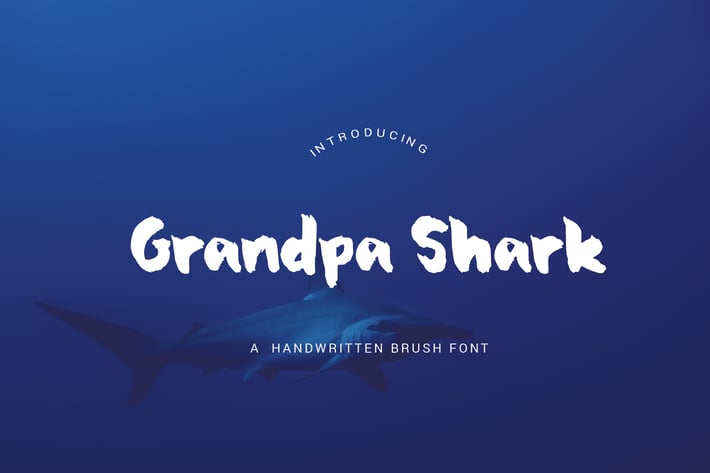
Grandpa Shark - Handwritten Brush Font
Grandpa Shark
Grandpa Shark is a handwritten brush font. This font is perfect for your set of apparel,
T-shirt, product packaging, brand, logo type, labels, posters, quotes, wall art, etc